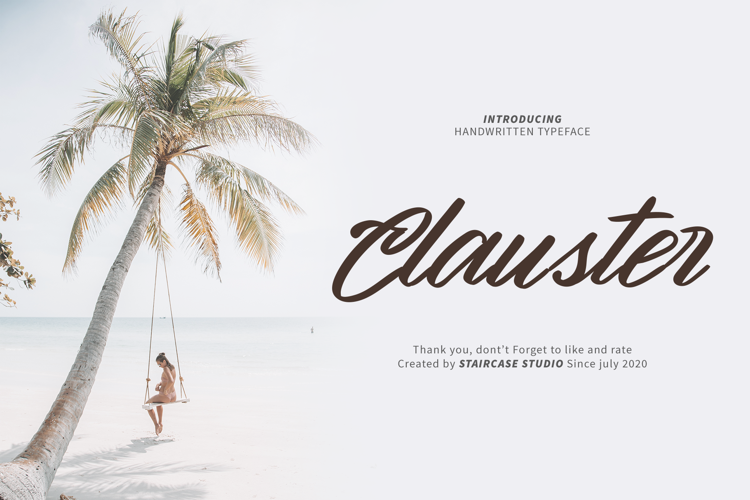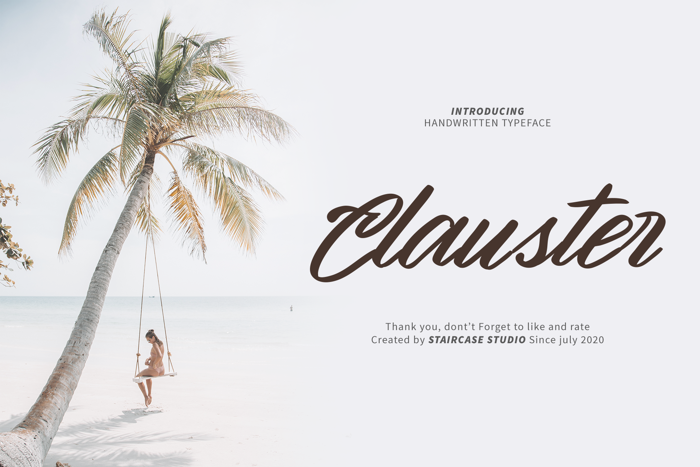
Clauster Font
Clauster Brush Script Font. A collection of letters and numbers suitable your projects also great for Logotype, Branding Design, Logo Design, Digital Lettering Arts, T-Shirt/Apparel, Poster, Magazine, Signs, Advertising Design, and any design needs.